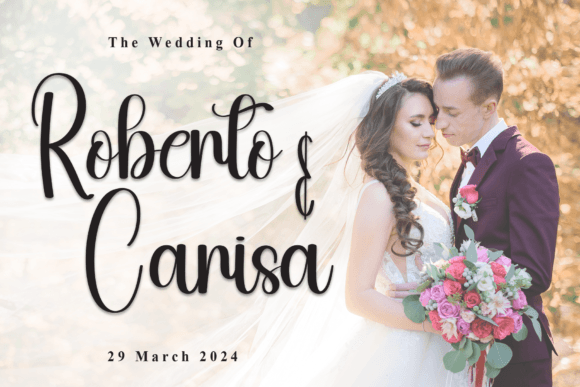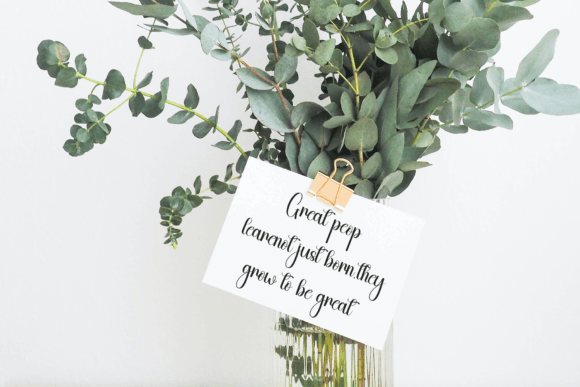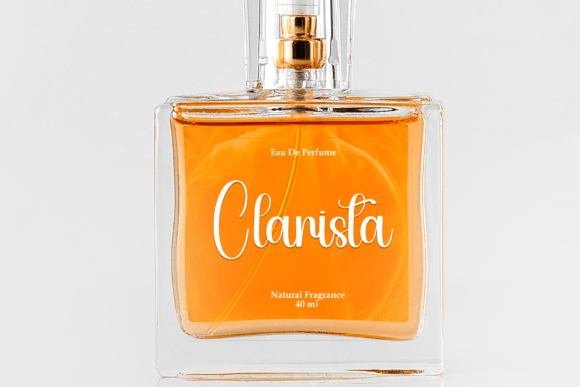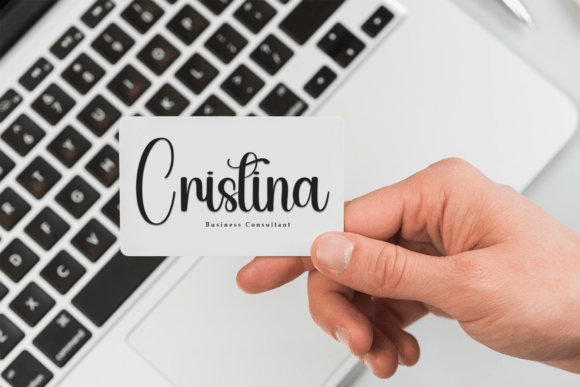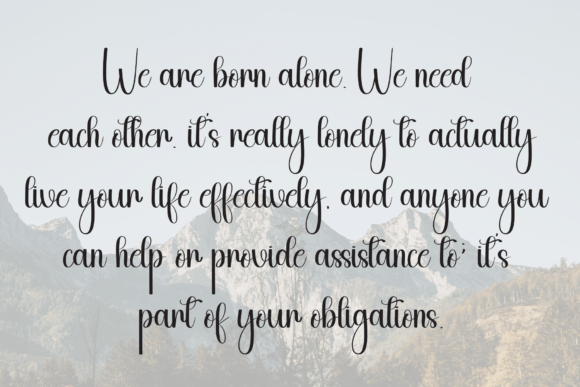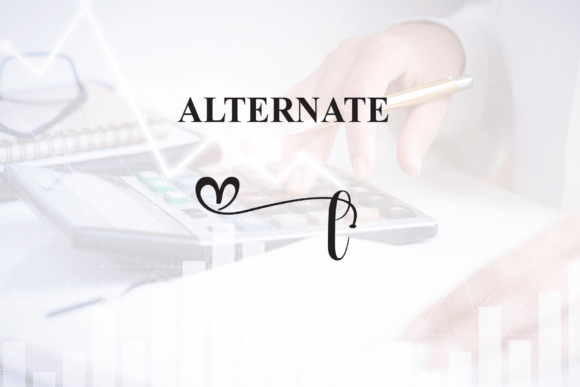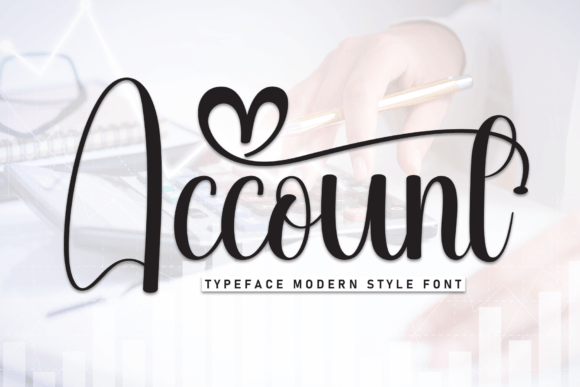
The Sweet Charm of Account Font: A Designer’s New Best Friend
I’ll never forget the time I was working on a wedding invitation project, and my client asked for a font that was “fun, yet elegant.” I scoured the internet, tried out dozens of fonts, but nothing seemed quite right. That was until I stumbled upon Account Font. This sweet and friendly handwritten font has been a game-changer for my designs, and I’m excited to share its charm with you! 🎉
What I Love About Account Font ✨
- ✅ It’s incredibly cute and fun, making it perfect for designs that need a playful touch.
- ✅ The handwritten style is elegant and sophisticated, suitable for wedding invitations, cards, and more.
- ✅ It’s highly legible, even at smaller font sizes.
- ✅ The font comes with a range of OpenType features, including glyphs and stylistic alternates.
- ⚠️ Some users may find the font a bit too casual for very formal designs.
- ⚠️ The font may not work well with very long blocks of text.
The Story Behind Account Font
Account Font was designed by a talented type designer who wanted to create a font that was both fun and elegant. Inspired by traditional handwriting, this font is perfect for designs that need a personal touch.
Q: What type of designs is Account Font best suited for?
A: Account Font is ideal for designs that need a fun, yet elegant touch, such as wedding invitations, cards, and other paper crafts.
Q: Is Account Font suitable for body text?
A: While Account Font is highly legible, it may not be the best choice for very long blocks of text. It’s better suited for headings, titles, and short paragraphs.
Q: Does Account Font come with OpenType features?
A: Yes, Account Font comes with a range of OpenType features, including glyphs and stylistic alternates.